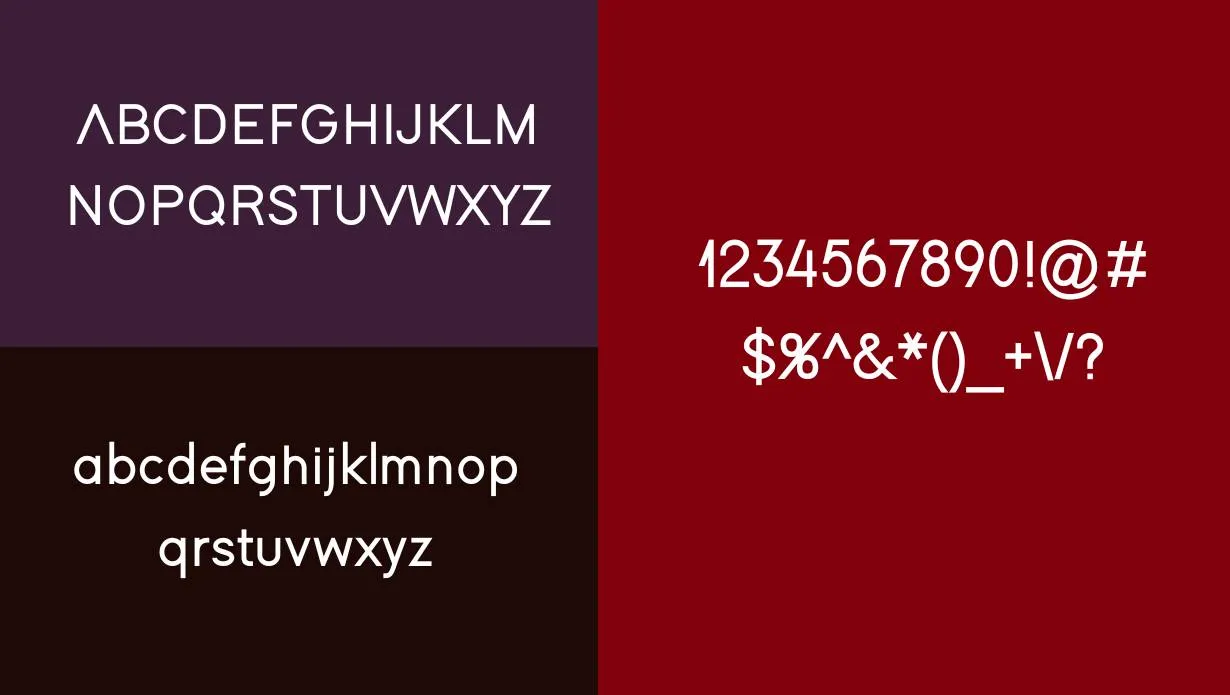
The Adam Font injects a dose of uniqueness into your designs with its artistic and creative characters. Whether you’re creating posters or artistic projects, this font stands out with its imaginative style.